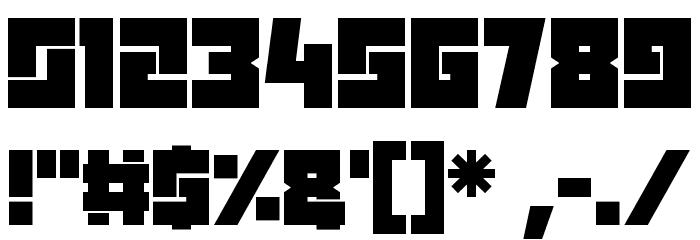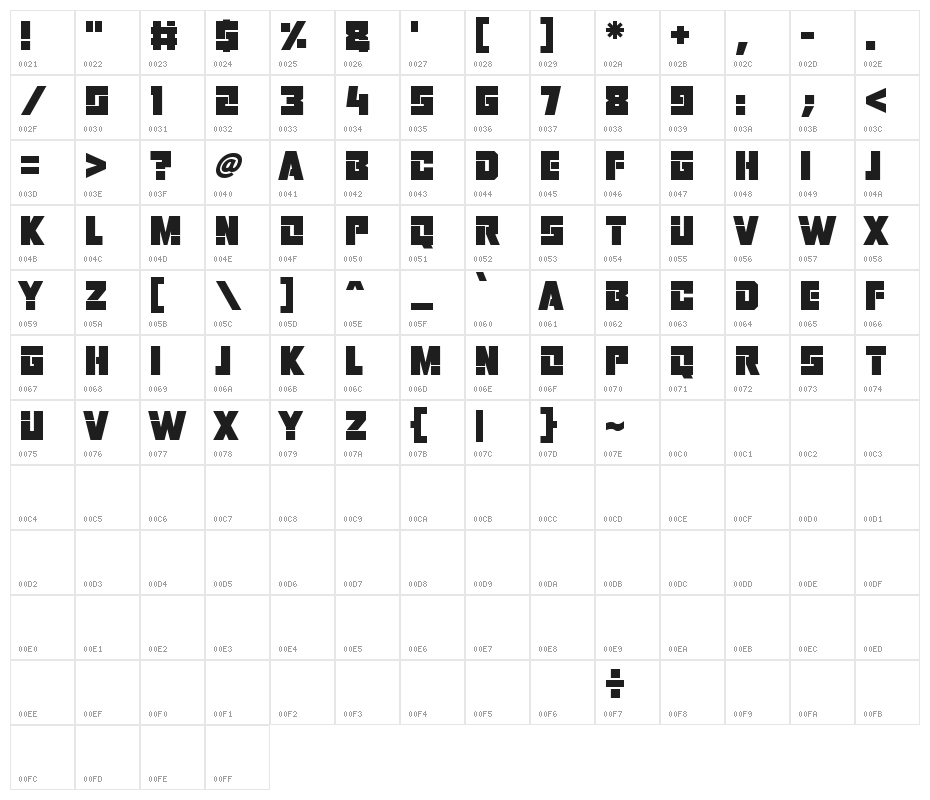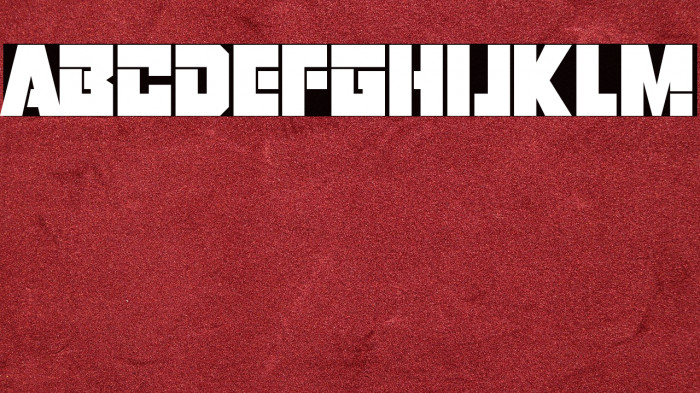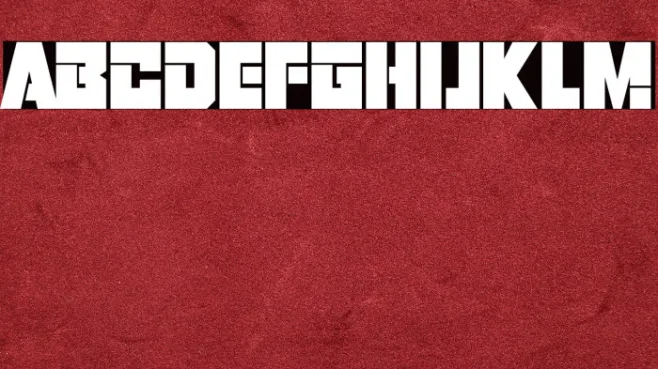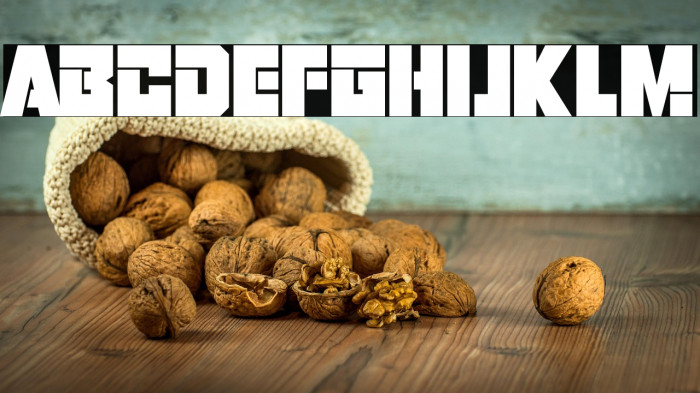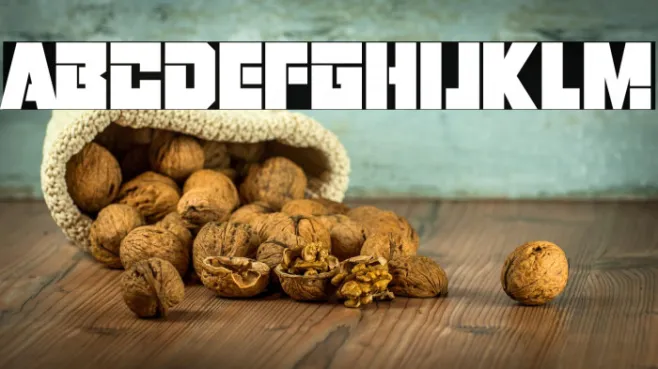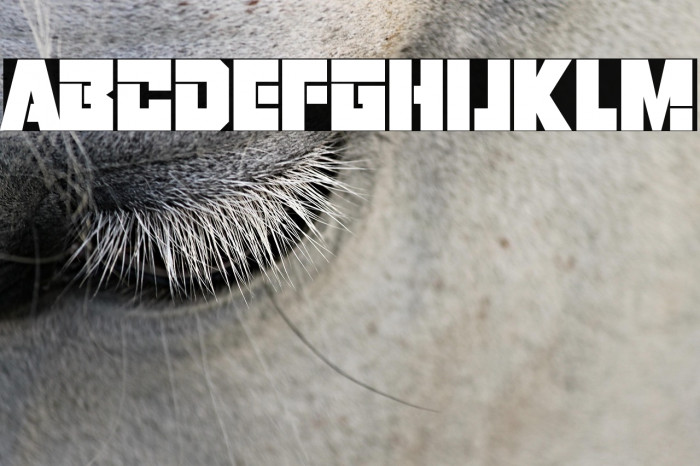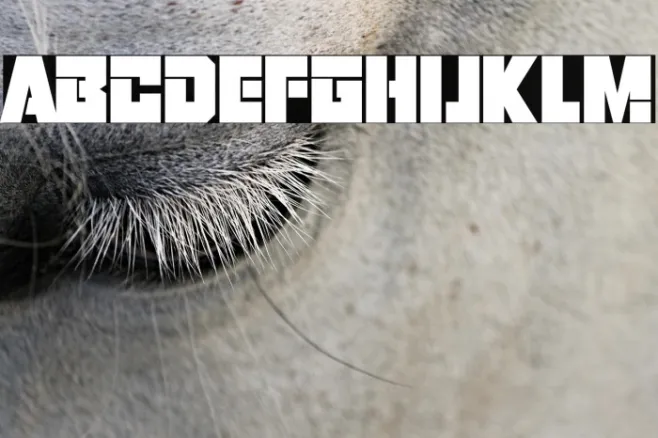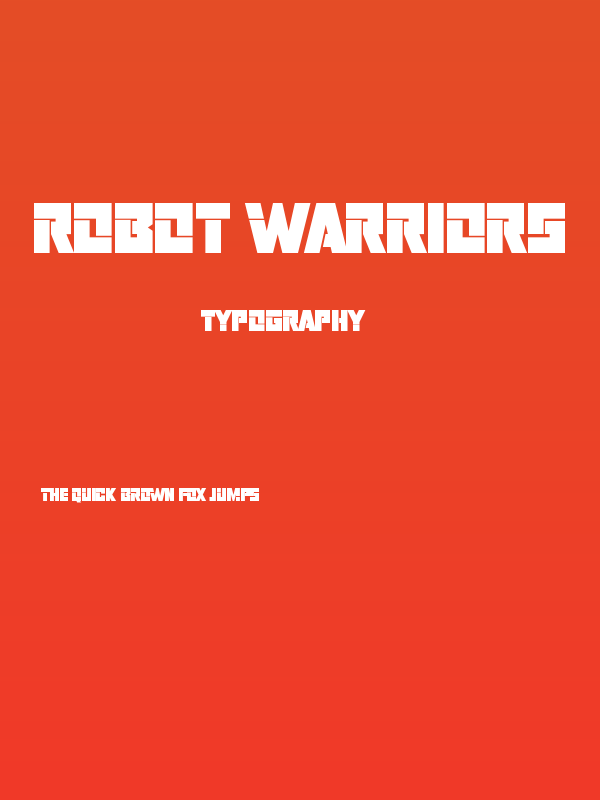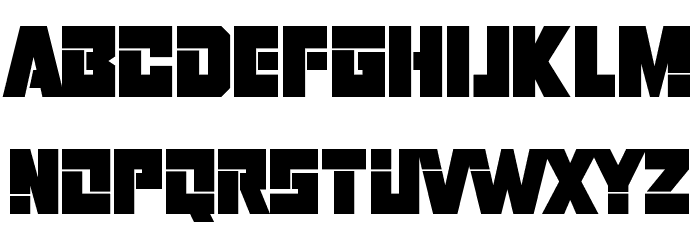
Robot Warriors Font
Robot Warriors Description
This font features a bold, geometric design with a futuristic and robotic aesthetic. The characters are constructed with sharp angles and straight lines, giving them a mechanical and industrial feel. The uppercase letters are particularly striking, with a blocky appearance that suggests strength and solidity. The numbers and special characters maintain this theme, ensuring consistency across all glyphs. The font's style is reminiscent of digital or sci-fi themes, making it ideal for projects that require a modern and edgy look.
| Proposed Projects | Ideal for video game titles, sci-fi movie posters, tech branding, and futuristic-themed designs. |